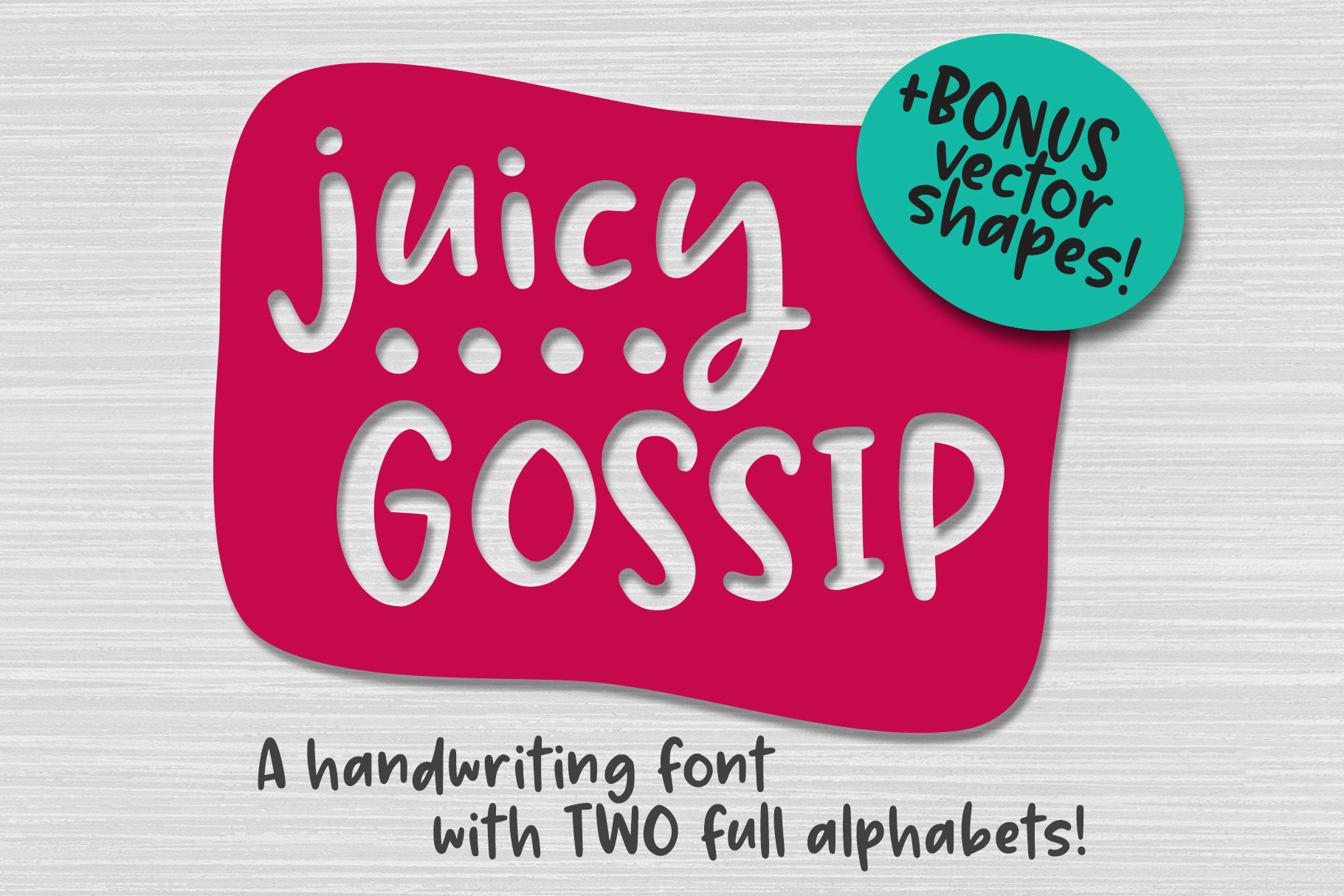
Juicy Gossip: cute handwriting font!
Introducing JUICY GOSSIP, a fun handwriting font with two uppercase sets, two lowercase sets, and two sets of figures to help give your projects that hand-lettered feel!
With 64 alternates (26 uppercase, 26 lowercase, 10 numbers, plus the ampersand and question mark), plus 30 double-letter ligatures (15 uppercase, 15 lowercase), this font can lend a fun, bouncy, hand-crafted look to your logo, branding, design, cut file, print, or anything else you want to create!
- The usuals: A-Z, a-z, 0-9, and plenty of punctuation
- 64 alternates (A-Z, a-z, 0-9, ? and &)
- 30 double-letter ligatures
- Over 60 extended Latin characters, including the full Latin-1 Supplement set
- PUA-encoded for easy access to all characters; alternates are also coded as Stylistic Alternates